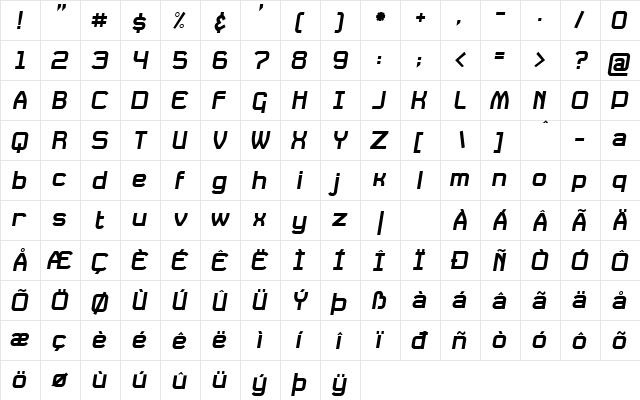
Daville Slanted Normal
Design Context for Daville Slanted Typeface
Daville Slanted is a composed and adaptable typeface that performs quietly and consistently across a wide range of design contexts. The slanted form adds forward momentum and visual energy.
Pro Tip: Use Daville Slanted for emphasis, pull quotes, and subheadings where its slanted energy can add rhythm to the layout.